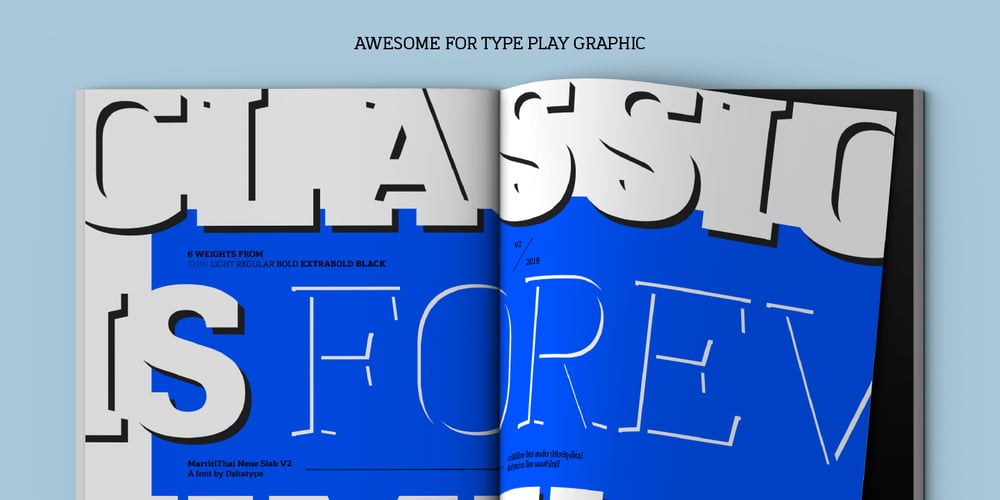
MartiniThai Neue Slab V2
MartiniThai Neue Slab V2 font
MartiniThai Neue Slab V2 Font Family was designed by Kwanchai Akkaratammagul and published by Deltatype. MartiniThai Neue Slab V2 contains 6 styles and family package options. Award winning 2017 font from Demark (Thailand) and G-Mark (Japan) in Graphic Design, MartiniThai Neue Slab is now available with better taste. Deltatype created a better version of MartiniThai Neue Slab V2: refined for better outline, we fine-tuned all outlines for better letterforms. Proportion were adjusted for better consistent. Metrics got new values for increased readability. Kerning, fine-tuned kerning pair for better spacing between the letters. MartiniThai Neue Slab V2 comes in six weights: Thin, Light, Regular, Bold, Extra Bold, Black. Thai Language is included in this package. MartiniThai Neue Slab is a unique slab serif in Thai Script that creates a sense of timeless and contemporary feel and is used by a media provider and nationwide in Thailand.